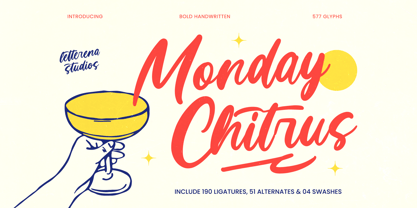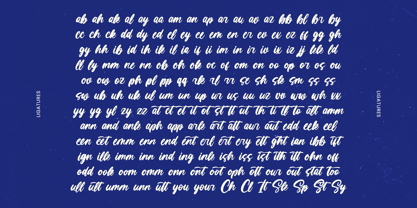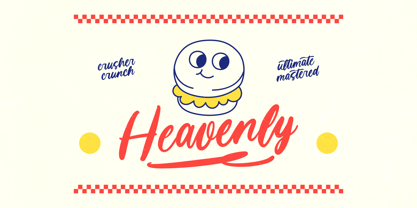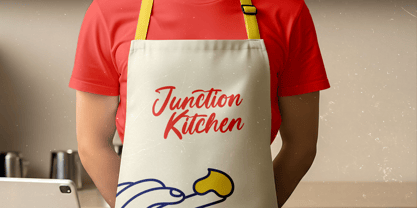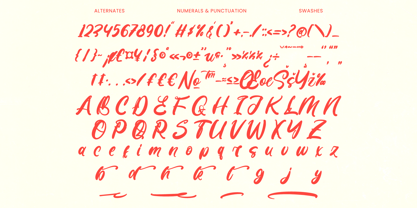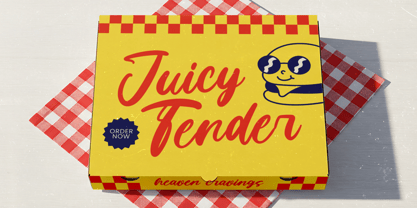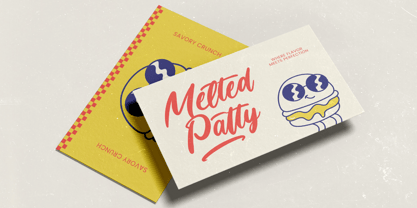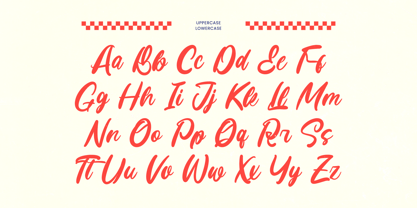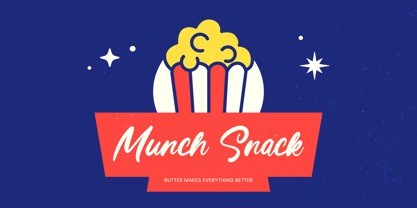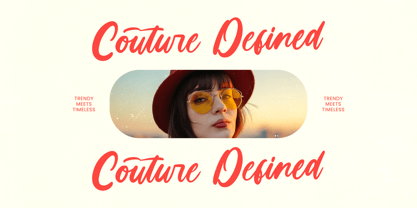
Monday Chitrus
Die Schriftfamilie Monday Chitrus wurde von Heru Utama Putra entworfen und von Letterena Studios veröffentlicht. Monday Chitrus enthält 2 Stile und Familienpaketoptionen. Mehr über diese Familie
Monday Chitus is a bold handwritten script font crafted to deliver strong personality and vibrant character in every stroke. Designed with confident curves and dynamic brush movement, this typeface blends expressive energy with smooth readability, making it perfect for branding, packaging, posters, merchandise, social media graphics, and creative campaigns. Its handcrafted feel adds warmth and authenticity while maintaining a modern and impactful presence. Featuring 190 ligatures, 51 alternates, 4 swashes, and 577 glyphs, Monday Chitus offers extensive typographic flexibility for seamless letter connections and stylish variations. Whether used for standout headlines or eye-catching brand identities, this font brings bold creativity and playful charm to both print and digital design projects.